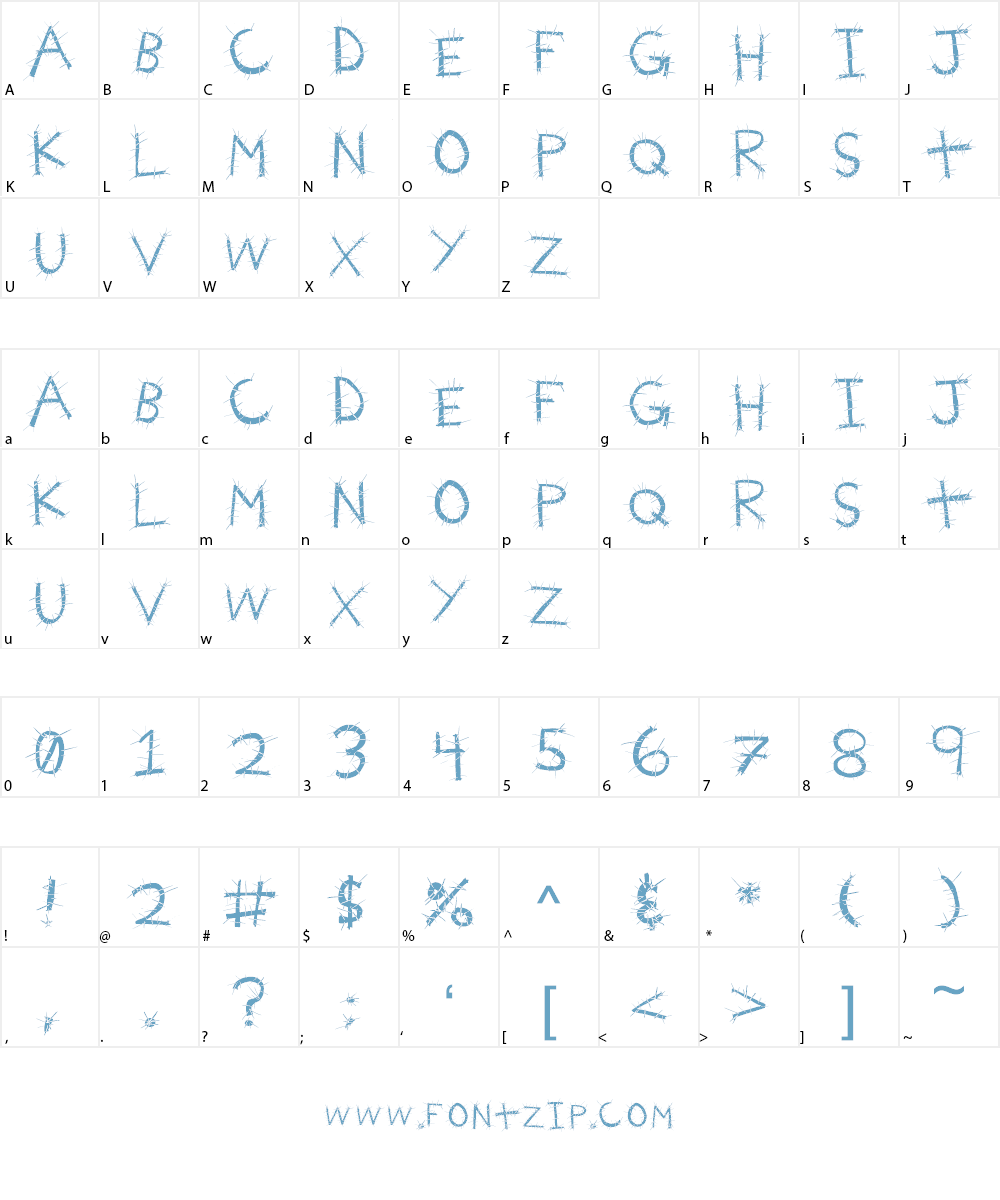
A font that looks like it was impaled with a bunch of needles. Yep.
Can't think of much else to say about this one. Although it did take
a while to figure out how to get the part of the needles outside the
letters to be black, and the part on the inside to be white. But
(obviously) I figured it out. Yay. Soooo.... Yeah.